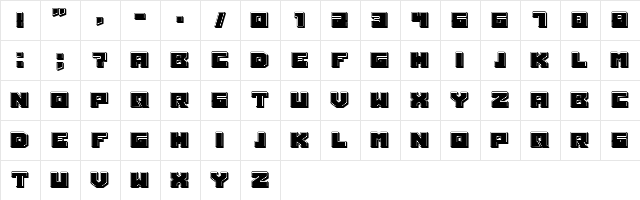
Ausweis Regular Font Preview
Ausweis Regular
Ausweis Regular Font Details
Design Context for Ausweis Typeface
Ausweis is a composed and adaptable typeface that performs quietly and consistently across a wide range of design contexts.